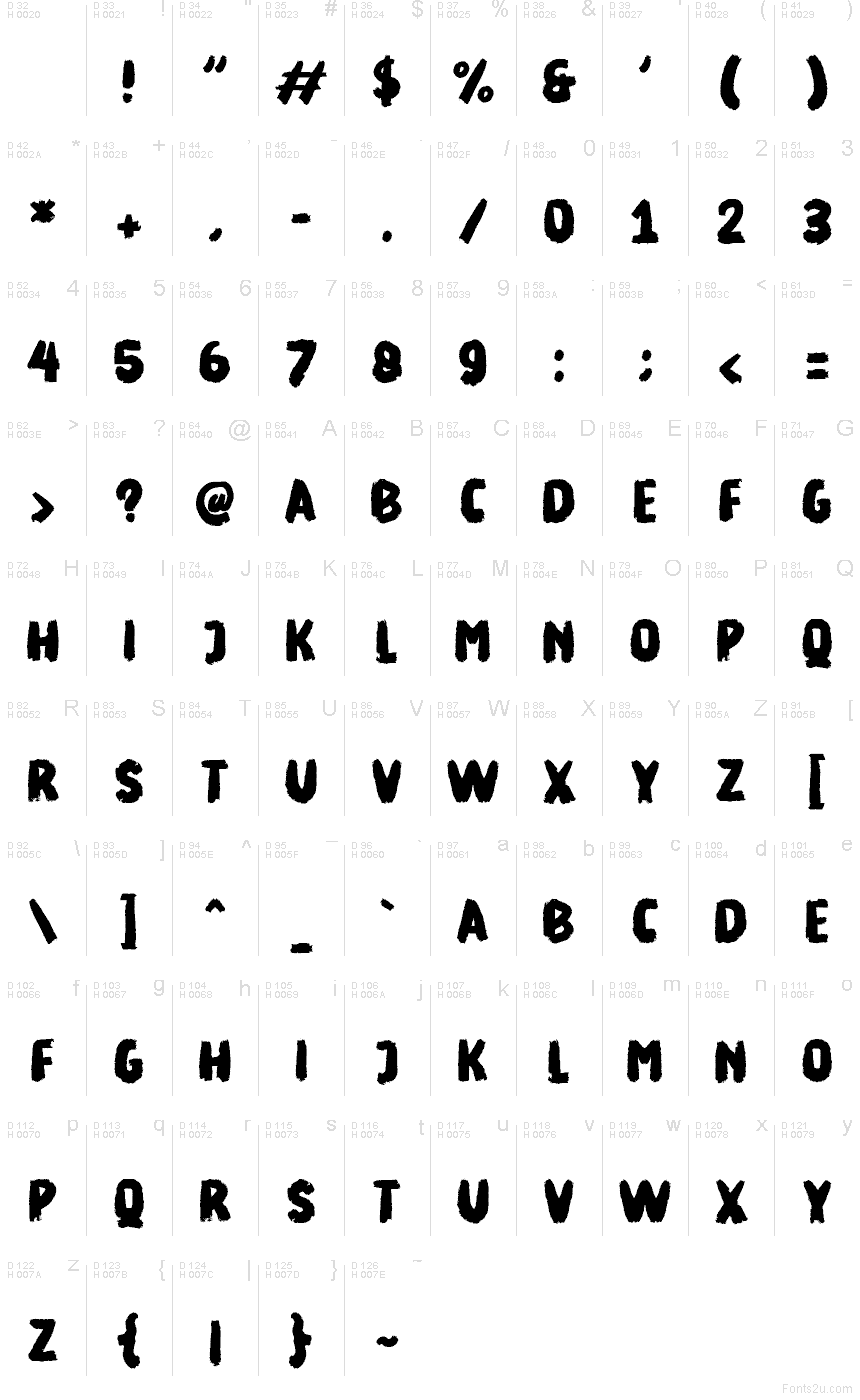
Food Delight
Food Delight font by Fikryal studio is a free brush font that looks like it’s been painted thickly onto a chalkboard or food truck sign. The letters are bold, chunky, and slightly irregular, with inky edges that feel messy in a deliberate, appetizing way—like sauce spread with a spatula. It carries the energy of street food and casual eateries, instantly signaling something tasty, bold, and unpretentious.
Using Food Delight, this free font shines on restaurant logos, burger or pizza menus, food truck branding, packaging for snacks, event posters, and bold social media promos. Its heavy strokes grab attention fast at larger sizes, making it a natural fit for headlines and signage. Pair this expressive brush typeface with a clean, simple sans serif for body copy to keep your layouts readable and punchy.